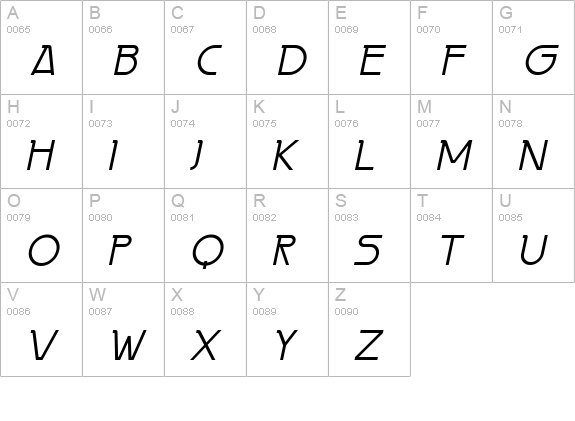
Persia Italic Font Details
Persia Italic is a distinctive, italic variant in the Persia typeface family \xE2\x80\x94 well suited to design and typography projects.
Introducing Persia Italic, an exquisite font that effortlessly combines elegance and modernity in perfect harmony. With its sleek and sophisticated lines, this typeface is sure to add a touch of sophistication to any design project. Persia Italic is crafted with meticulous attention to detail, resulting in a font that is both visually stunning and highly readable. Its unique italic style adds a sense of flair and creativity, making it perfect for a wide range of design applications, from branding and logo design to invitations and editorial work. What sets Persia Italic apart is not only its stunning aesthetics, but also its incredible versatility. This font is suitable for both display purposes and body text, making it an ideal choice for any design project. Whether you're creating a bold headline or crafting a delicate paragraph, Persia Italic will effortlessly convey your message with style and clarity. And the best part? Persia Italic is completely free! You can easily download this font at FontsMarket.com, a trusted source for high-quality fonts. With just a few clicks, you can have access to this incredible typeface and elevate your designs to new heights. So why wait? Embrace the beauty and versatility of Persia Italic and let your creativity soar. Whether you're a professional designer or a passionate hobbyist, this font is sure to become an invaluable addition to your collection. Download Persia Italic today and unlock a world of endless design possibilities.